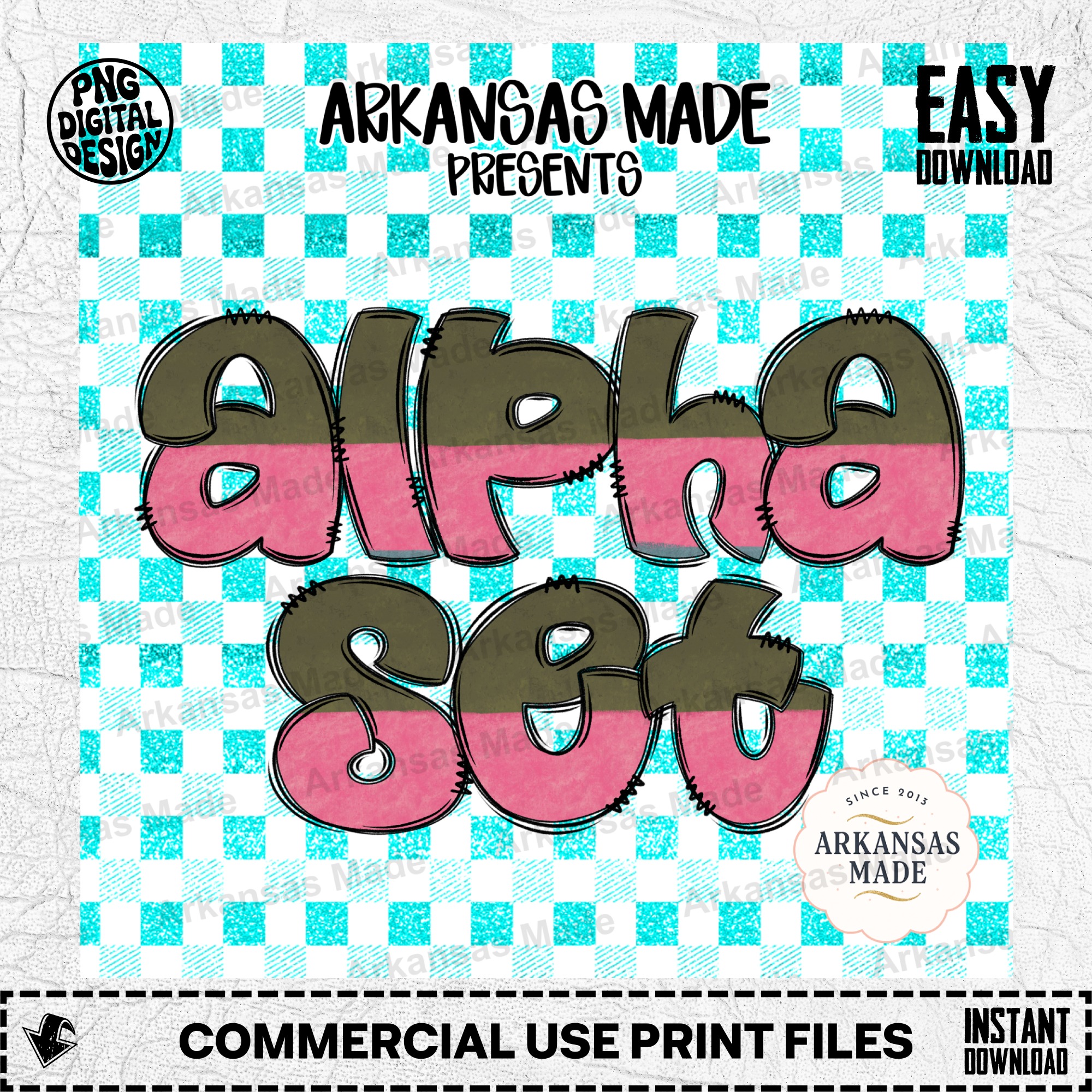
Bubblegum Grunge Alpha PNG Set | Distressed Two Tone Font | Pink & Olive Letters | Digital Download for Sublimation & Crafts
Unleash creativity with this Bubblegum Grunge Alpha PNG Set, featuring playful two-tone distressed letters perfect for sublimation and DIY crafts. Instant digital download! This trendy alpha set boasts a faux stitched outline effect and a modern, slightly grunge aesthetic, ideal for Y2K-inspired designs or contemporary boho creations. Crafters, small business owners, and digital artists will adore these versatile printable letters for personalizing shirts, tumblers, and party decor.